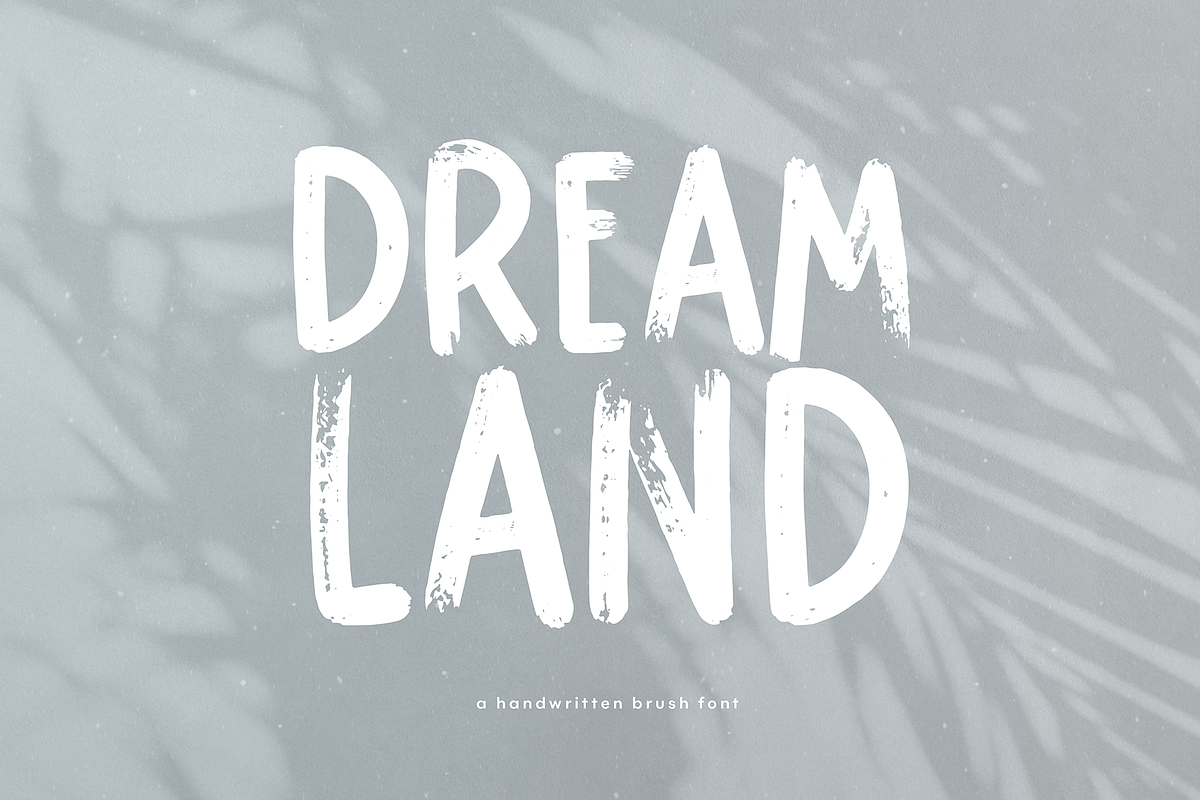
The Dreamland | Handwritten Brush Font Free Download is a stylish and artistic typeface that brings a personal, handmade touch to your designs. With its bold brush strokes and casual, handwritten feel, this font is perfect for creative projects that require an expressive and organic look. Ideal for logos, posters, quotes, and social media graphics, Dreamland adds an artistic flair to any project.
Dreamland | Handwritten Brush Font Free Download is perfect for designers looking for a font that exudes creativity and uniqueness. Whether you're creating art for a modern brand or designing a handmade product, this font will bring character and charm to your work. Download this expressive font today and let your designs stand out!